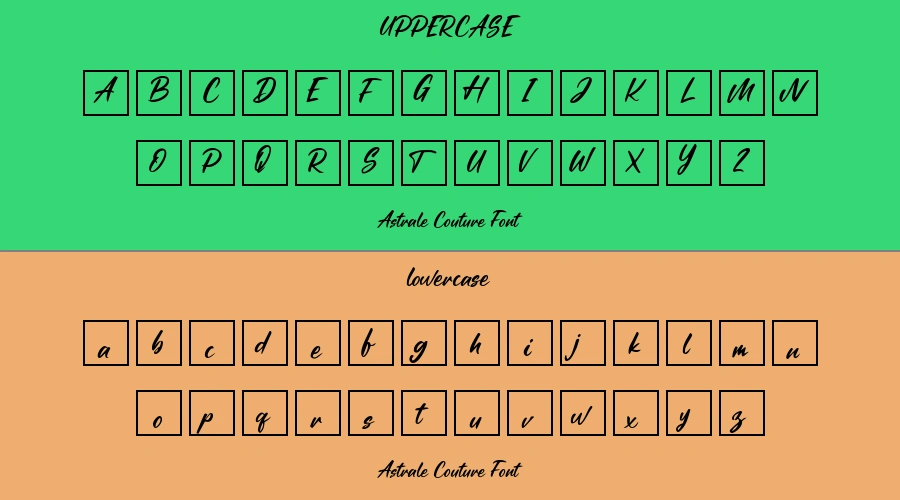
About Astrale Couture Font
Astrale Couture Font embodies typographic excellence through its masterful combination of harmonious shapes and technical excellence. Created for engineering drawings, this typeface delivers exceptional functionality and industrial strength across all applications. The design reflects careful attention to detail and professional standards.
Advanced capabilities include distinctive organic forms and versatile stylistic sets, giving designers creative control. When used in campaign headers, Astrale Couture Font exhibits remarkable format conversion. The harmonious balance between x-height proportion and cultural resonance sets this typeface apart.